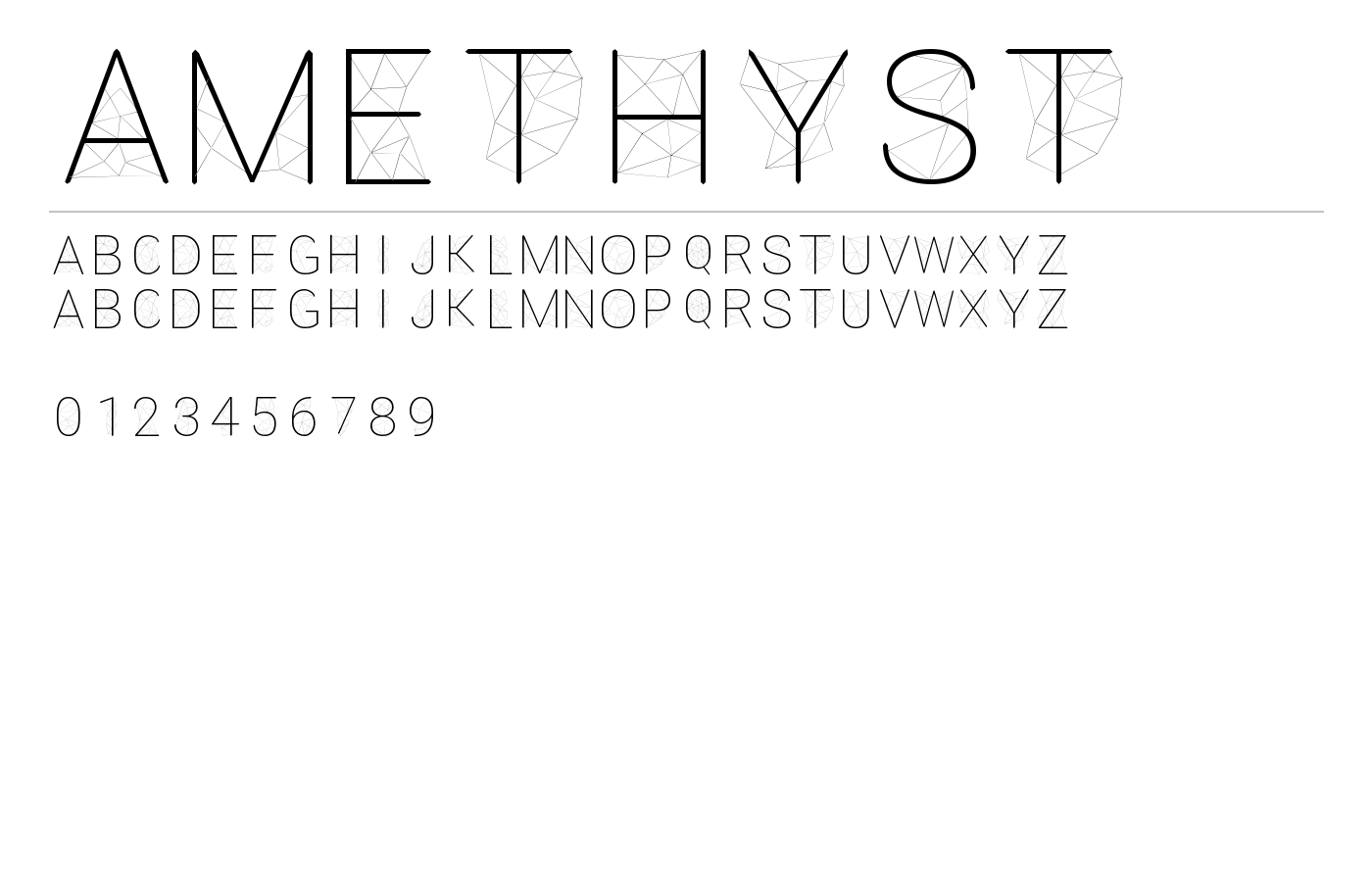
Amethyst is a delicate, modern sans serif font featuring thin, geometric letterforms with consistent stroke weight and a tall x-height. Its clean lines and elegant simplicity make it well-suited for stylish branding, minimalistic editorial layouts, and contemporary design projects where a light, airy feel is desired. This font works best in headlines and logos that seek a refined, modern aesthetic with a subtle artistic touch.
Amethyst Font